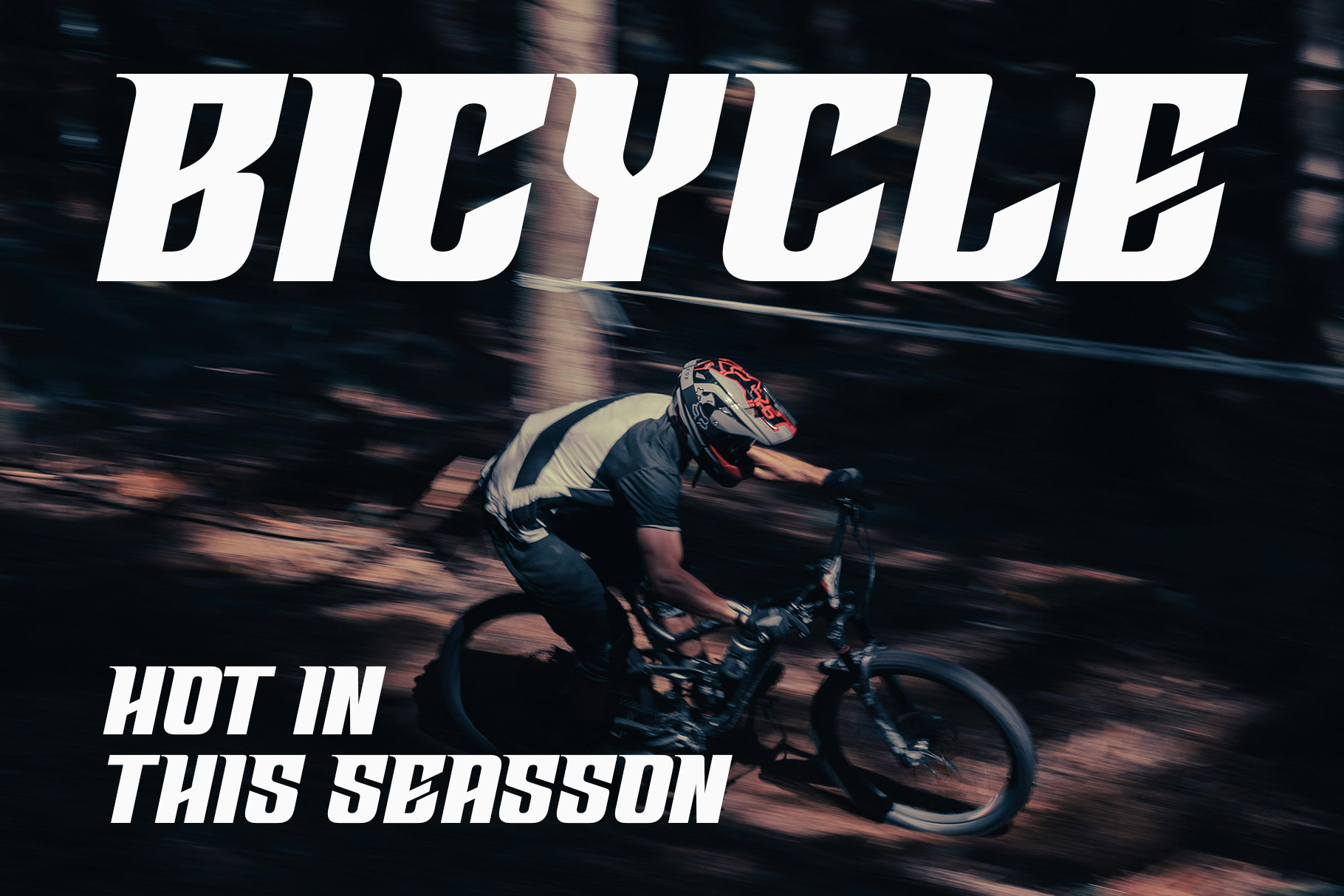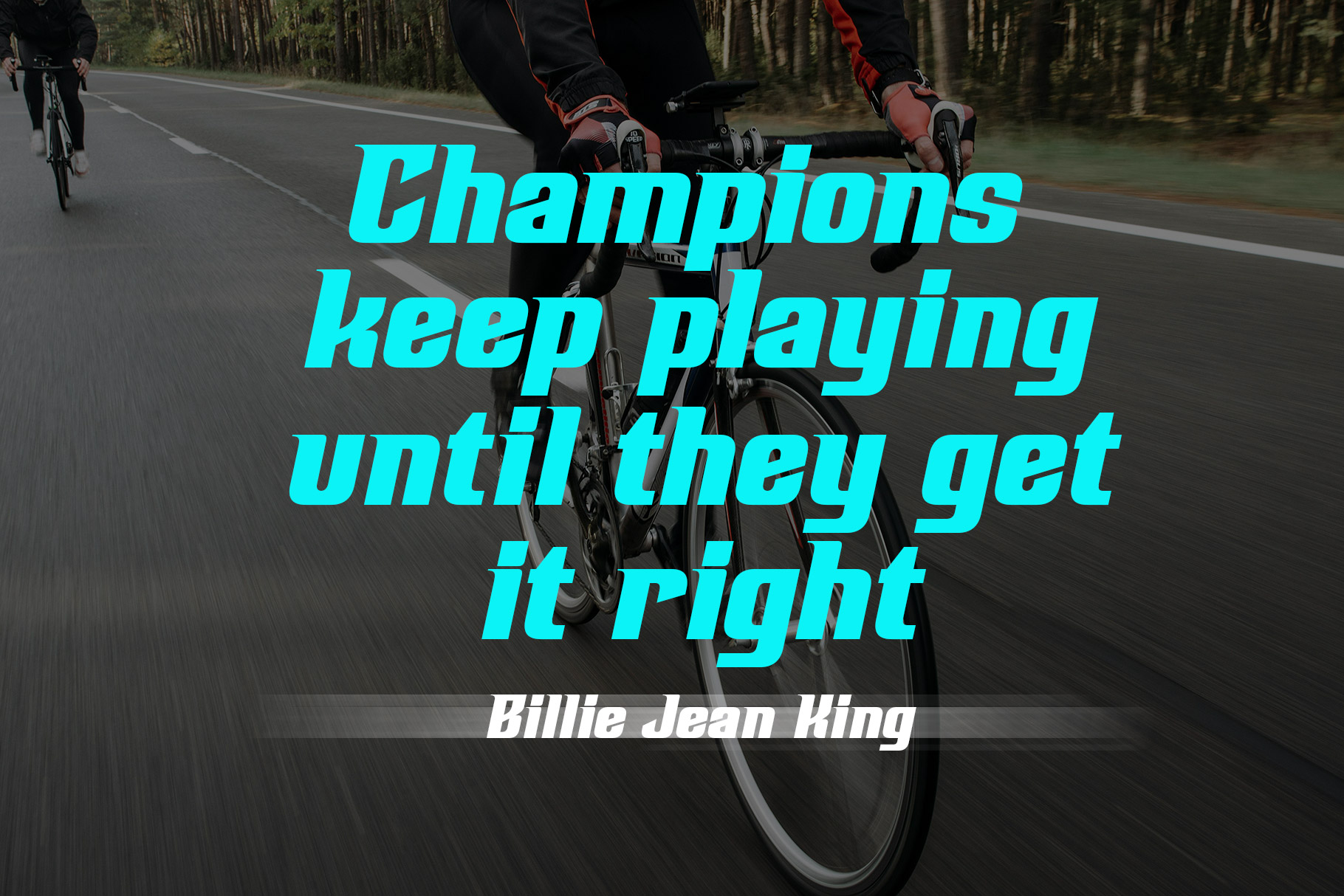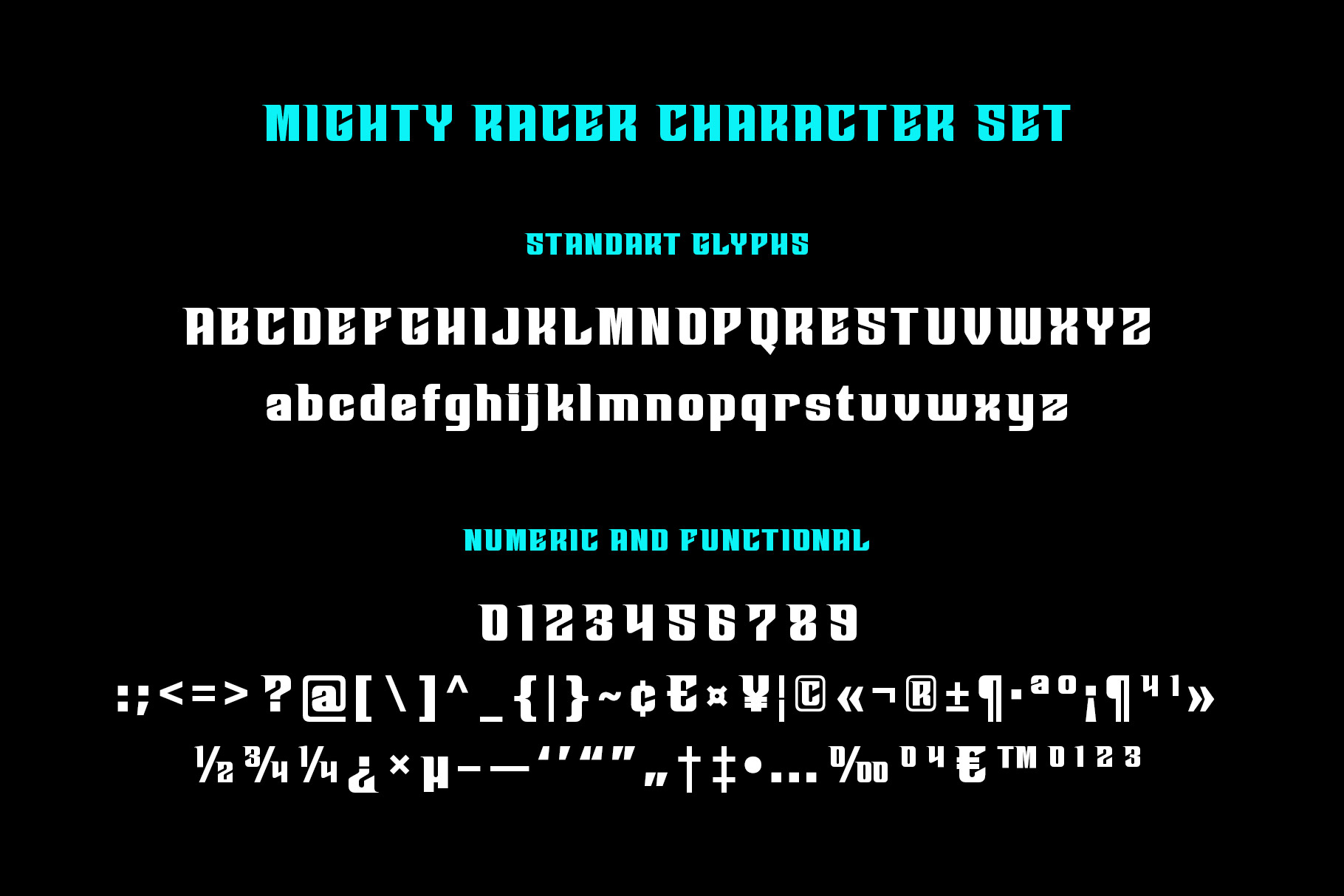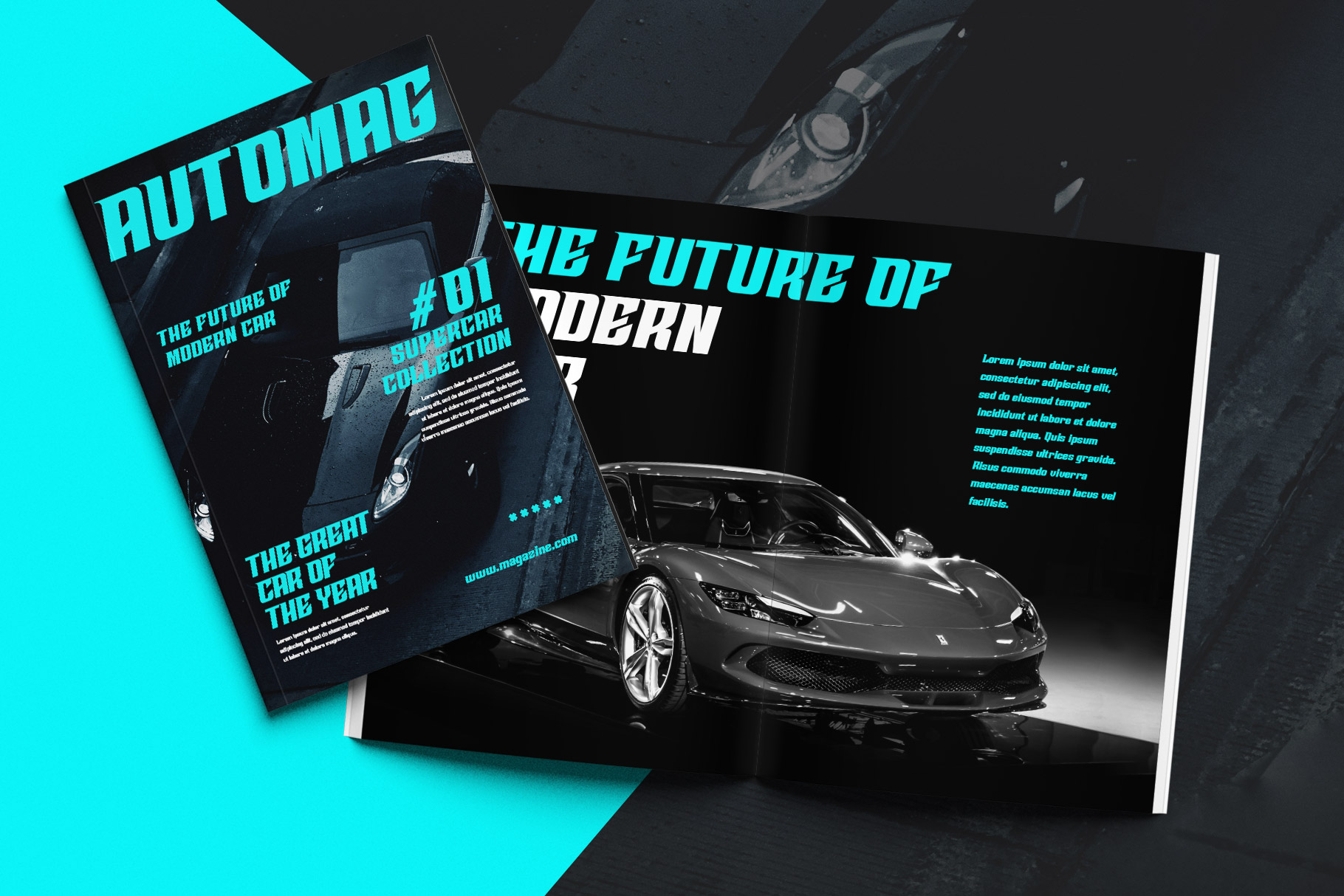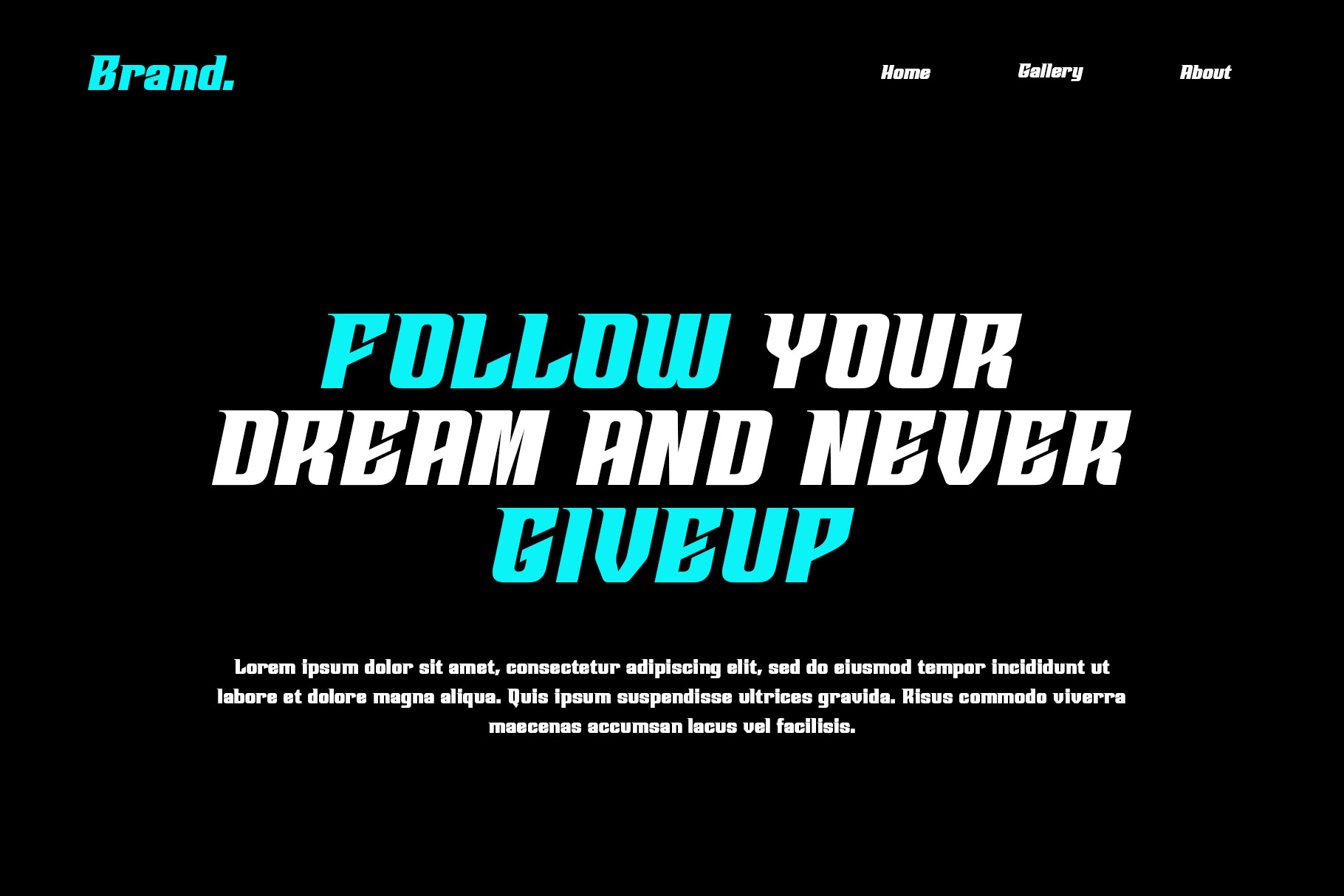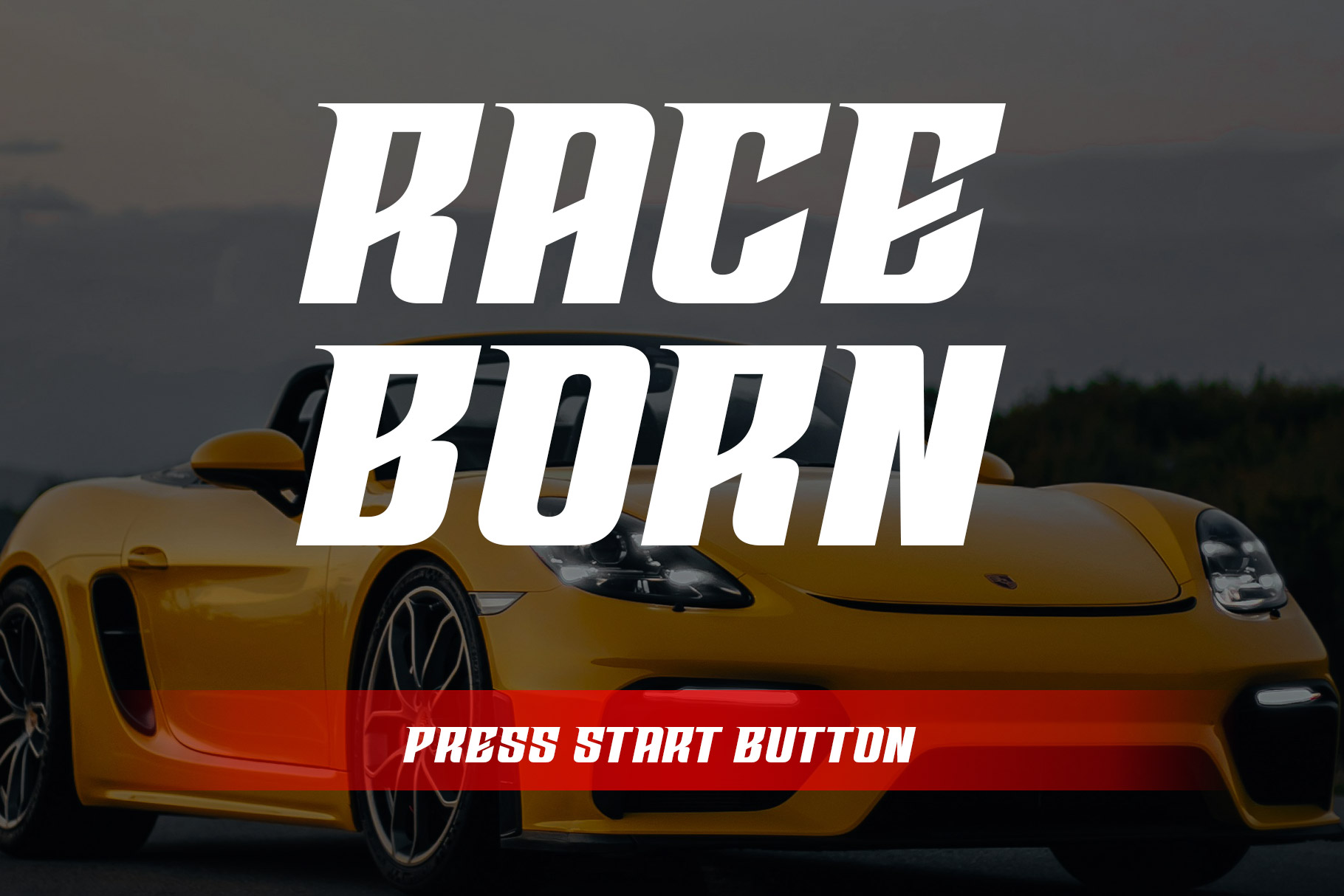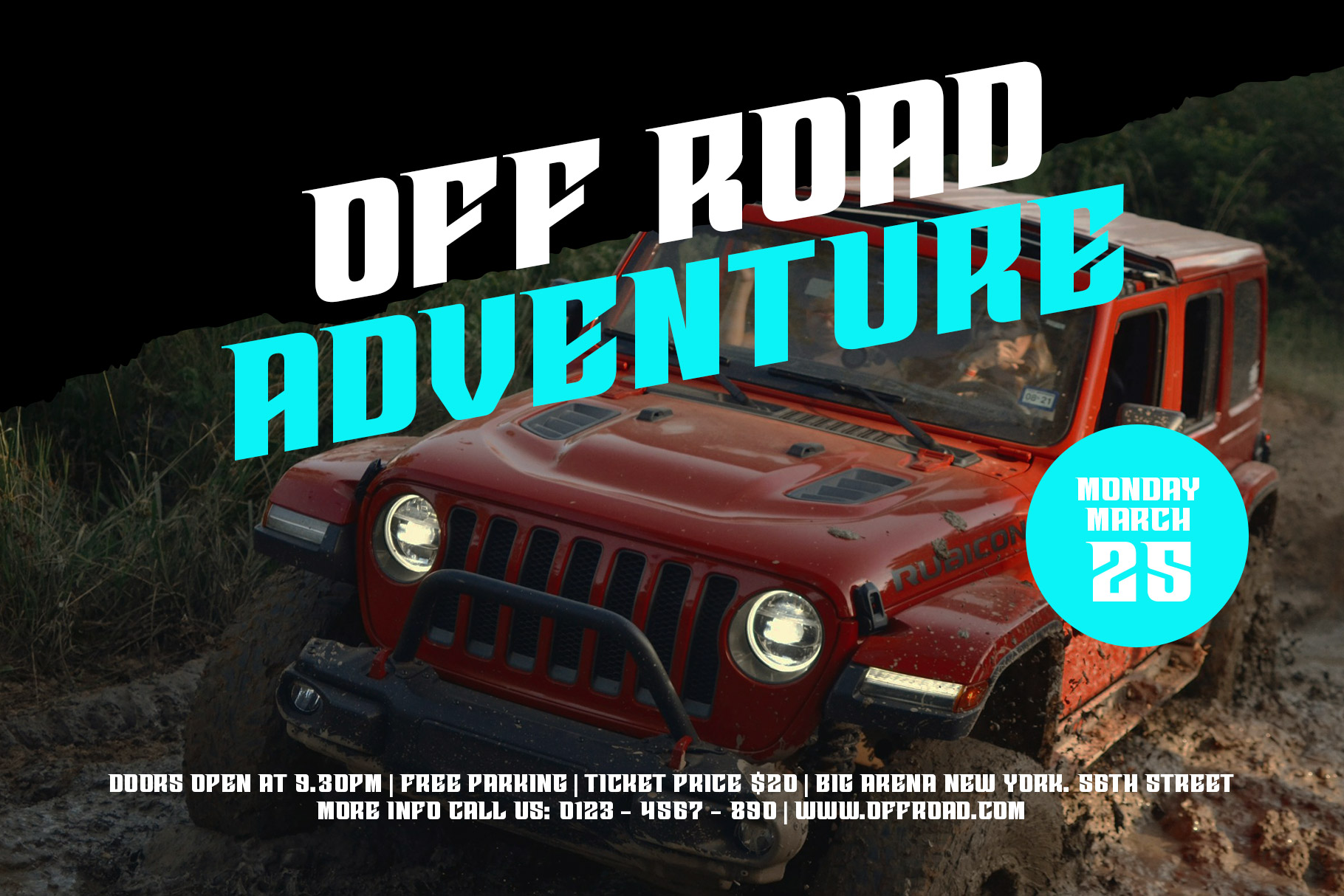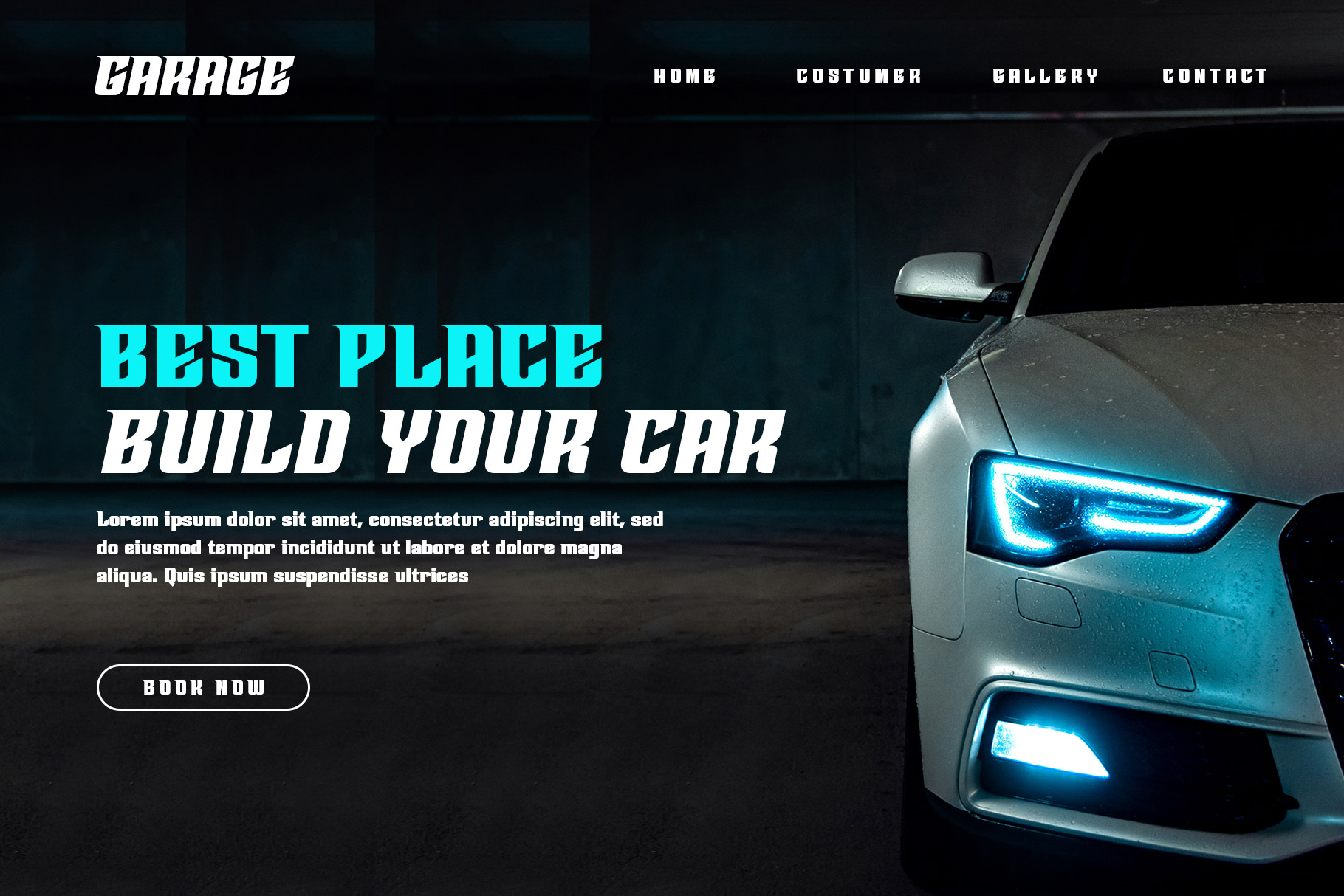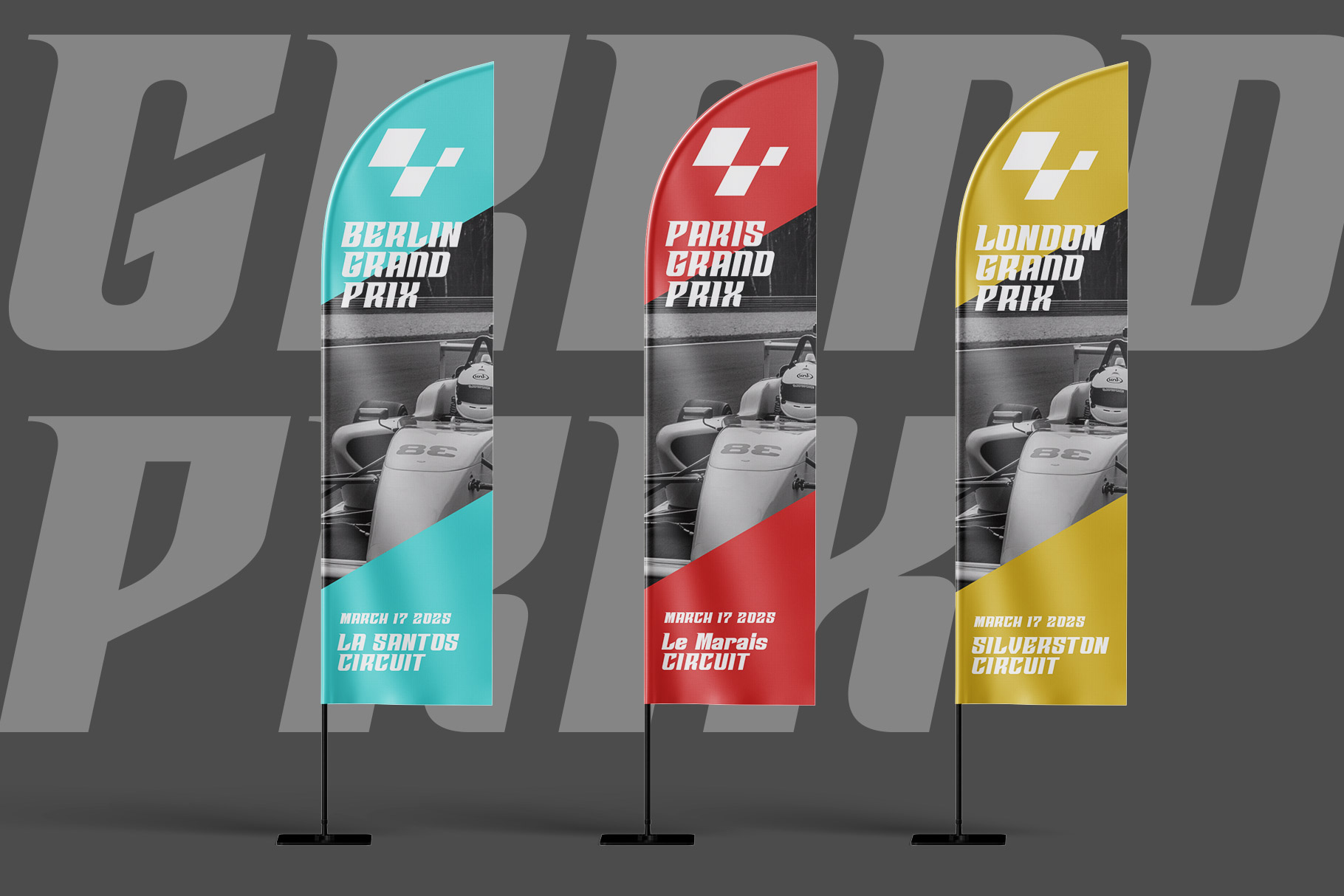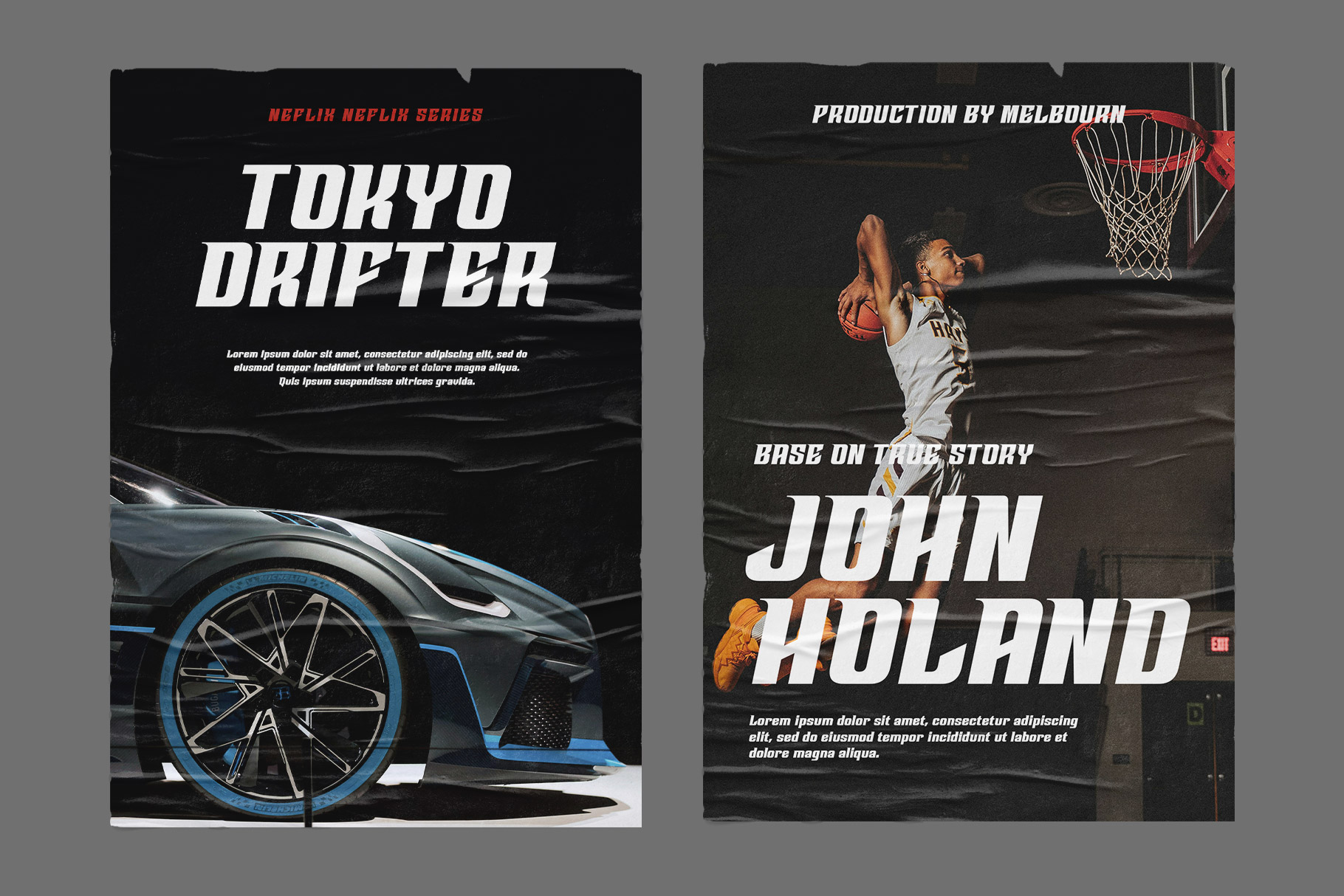
Mighty Racer Racing Font
Experience racing in a visual form for your design with the mighty racer font. Inspired by the fast car brand and futuristic digital concept, targeting the fast forward mentality with a bold shape to make the statement louder and faster than ever.
Mighty Racer is a professional choice for any creative endeavor, sports brand, logo, esports, games, posters, film/movice, car brands, automotive events, advertising, motorcycles, digital futuristic concept and many other project with modern touch.